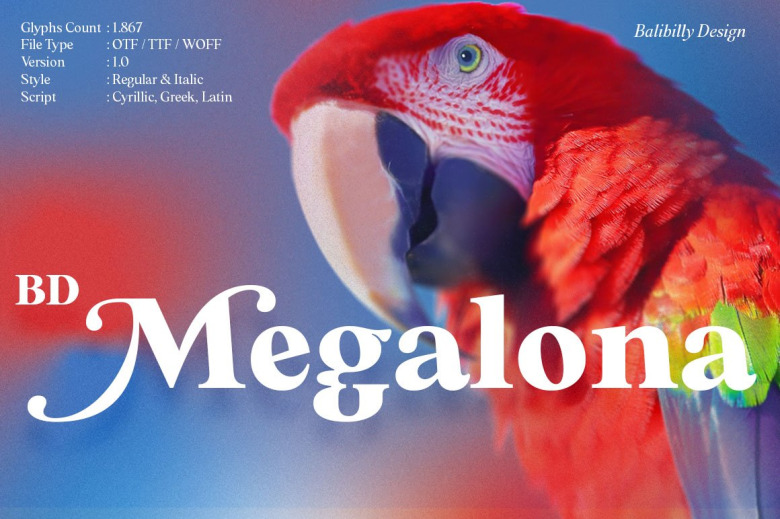
BD Megalona Font
BD Megalona provides a range of choices that will give luxury vibes in symmetrical layouts with selective deviations, and work well in a stylish look for your typographic project. This is a complete package of problem solvers perfectly suited for body text and high-impact headlines. Advance open-type features definitely stunning on logos, branding, magazines, website, etc.
BD Megalona is our ego in expression that aims to supply the necessity of design nowadays while still in the corridors of glory of past traditions as a source of our inspiration.